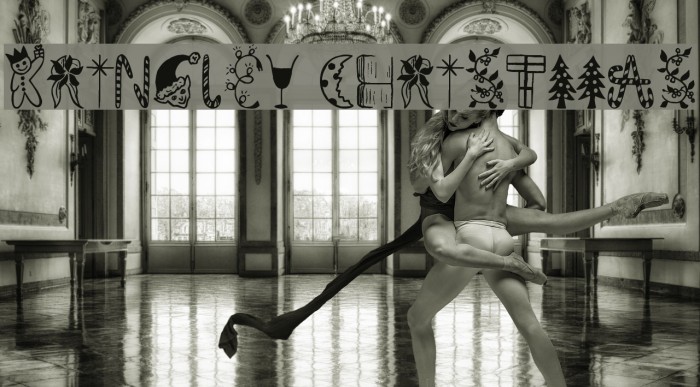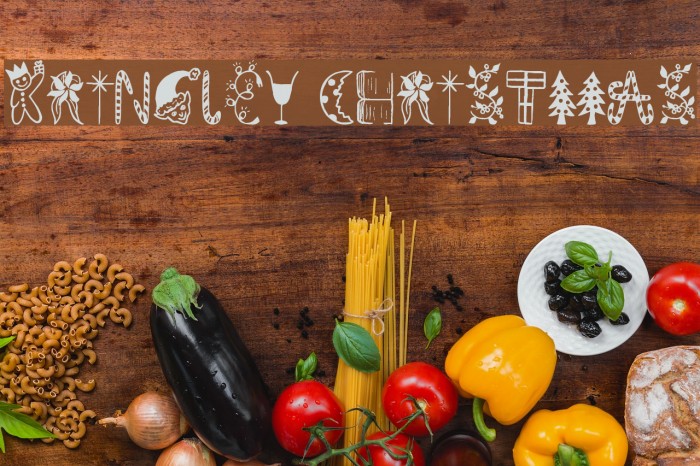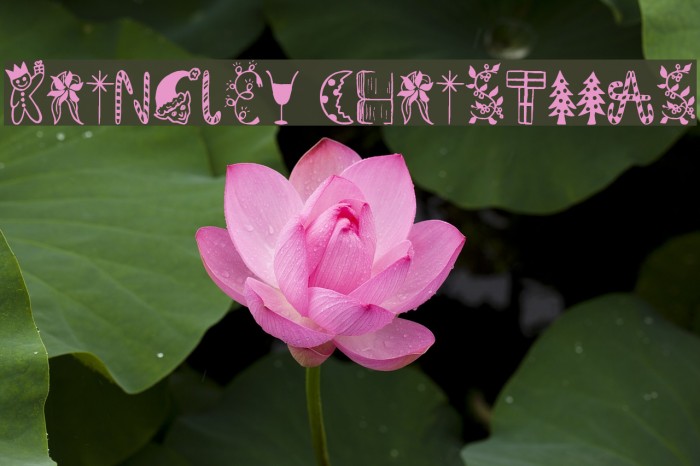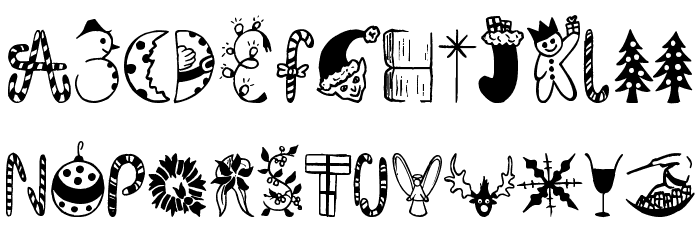
Kringley Christmas Font
Kringley Christmas Description
This whimsical and festive font is infused with holiday spirit, featuring playful and decorative elements that evoke the joy of the Christmas season. Each letter is uniquely designed with Christmas-themed motifs such as Santa hats, snowflakes, candy canes, and Christmas trees, making it perfect for capturing the essence of holiday cheer. The numbers and special characters maintain a more traditional serif style, providing a nice contrast to the decorative letters. This font is ideal for projects that require a touch of holiday magic and creativity.
A festive, Christmas-themed decorative font with playful holiday motifs from Uncategorized fonts.
- Proposed Projects: Ideal for holiday greeting cards, festive invitations, Christmas-themed posters, and seasonal marketing materials.
- Use Case: Headlines, Logos, Decorative text